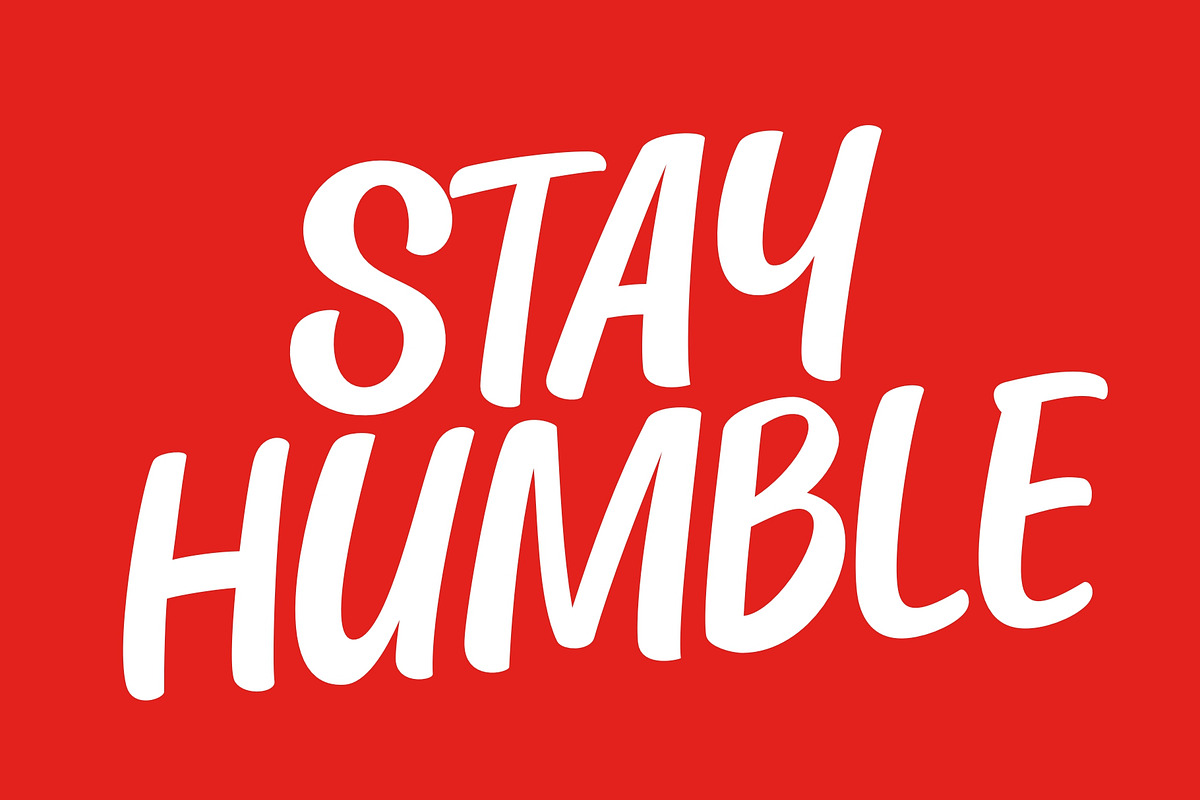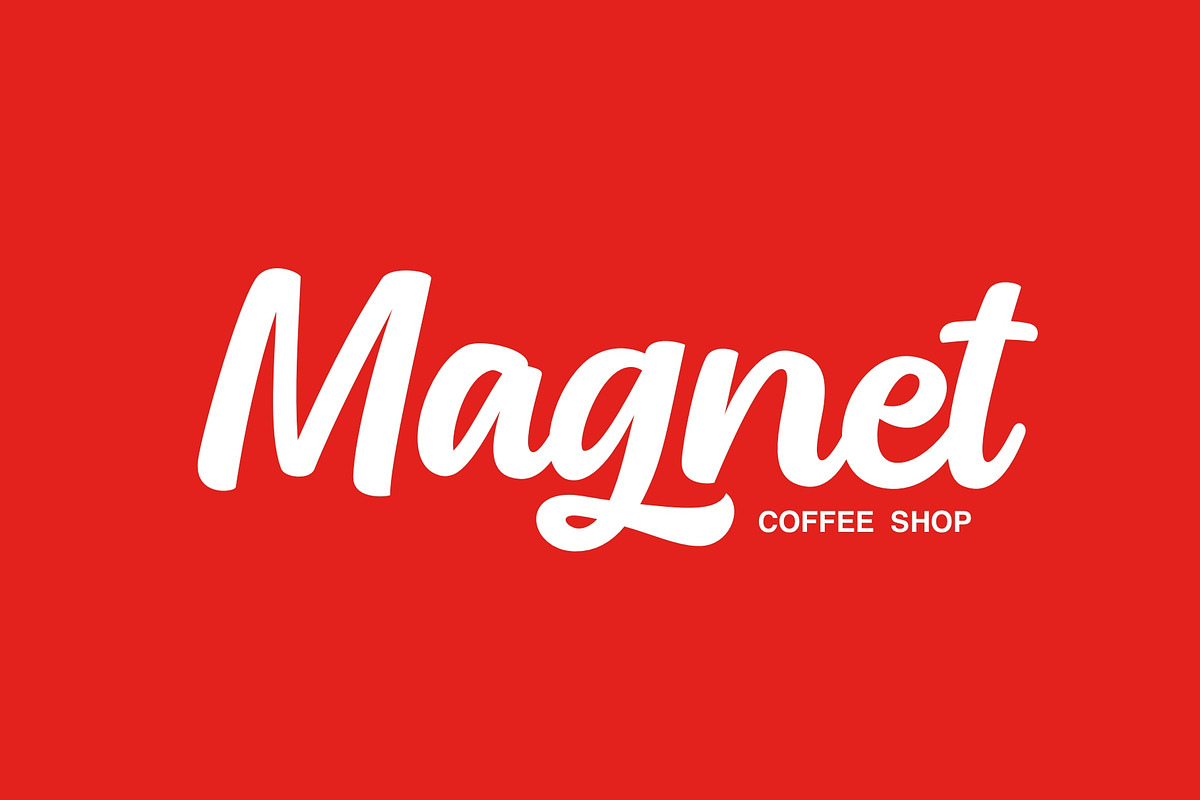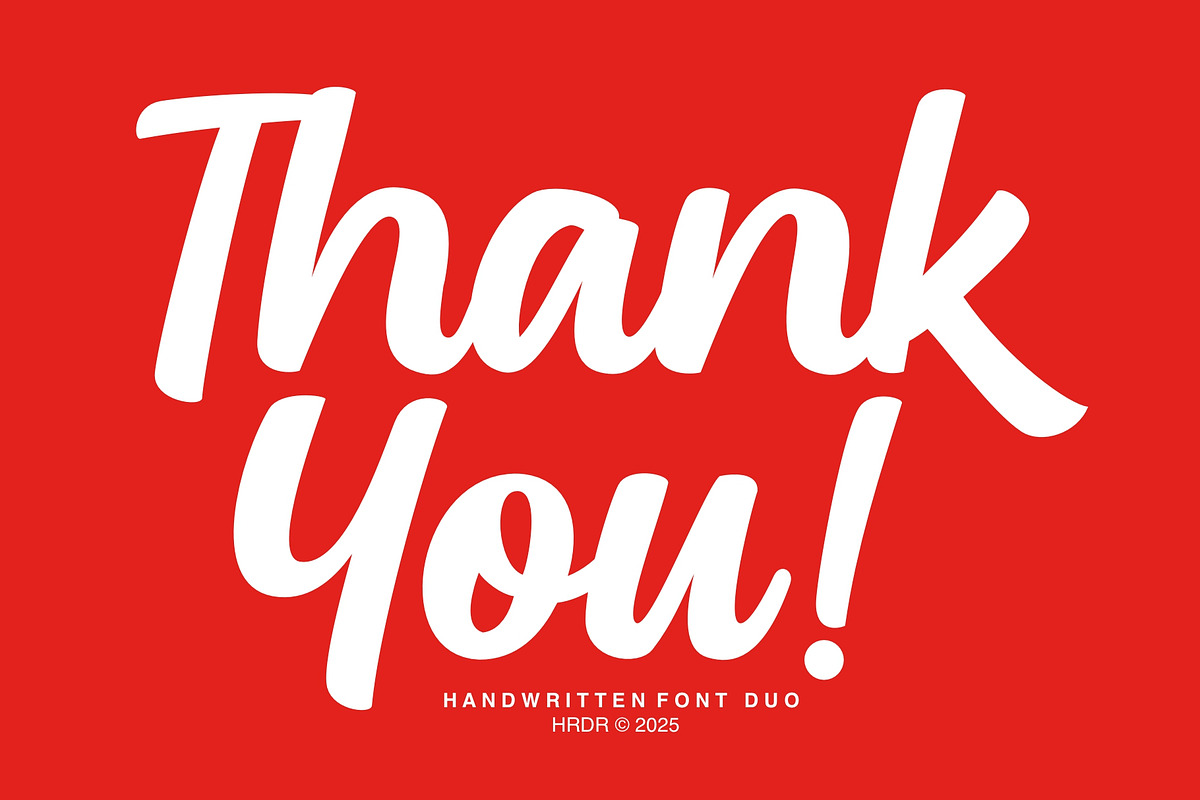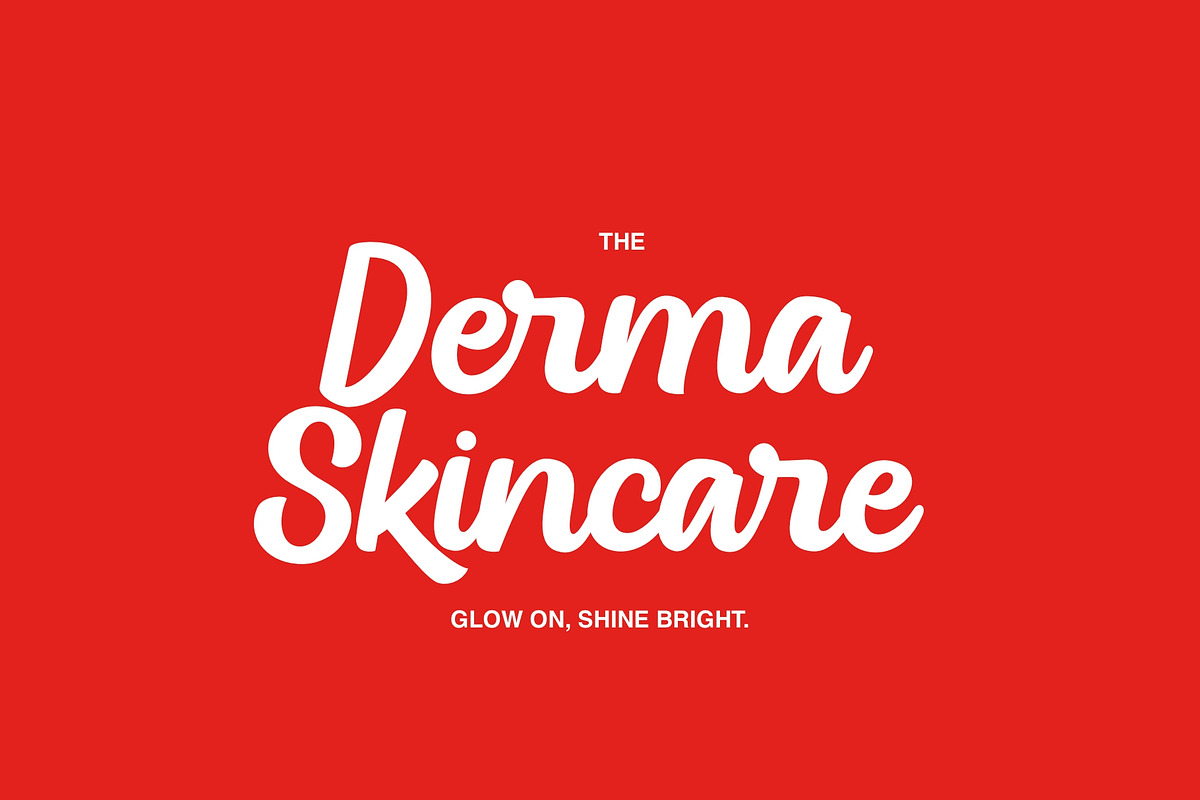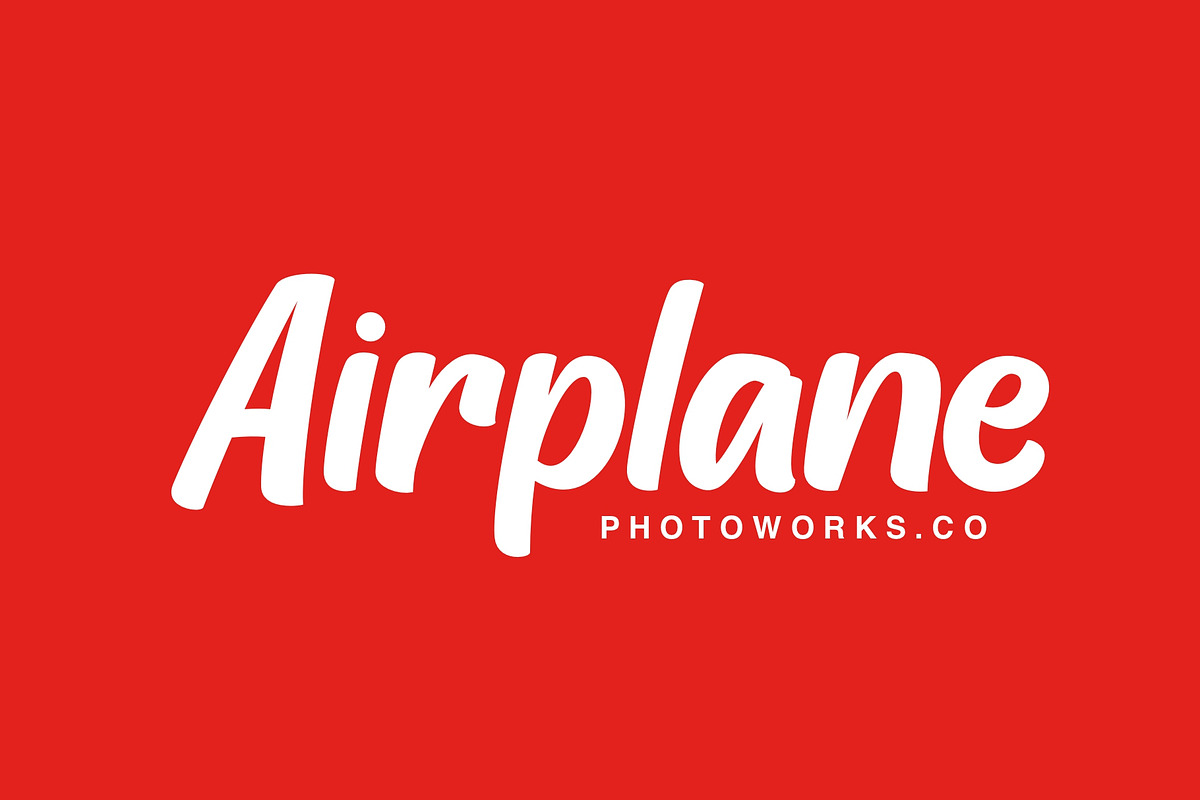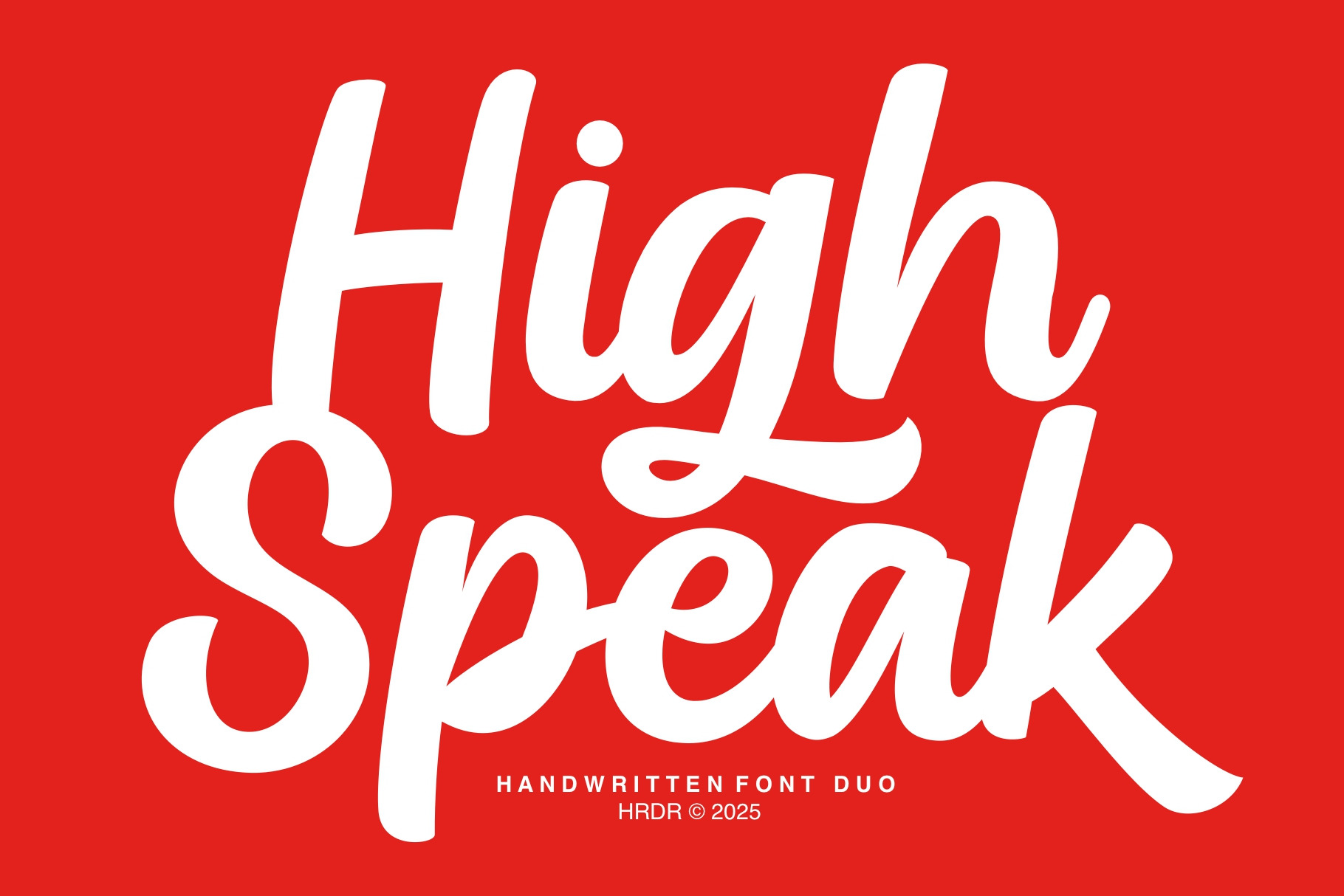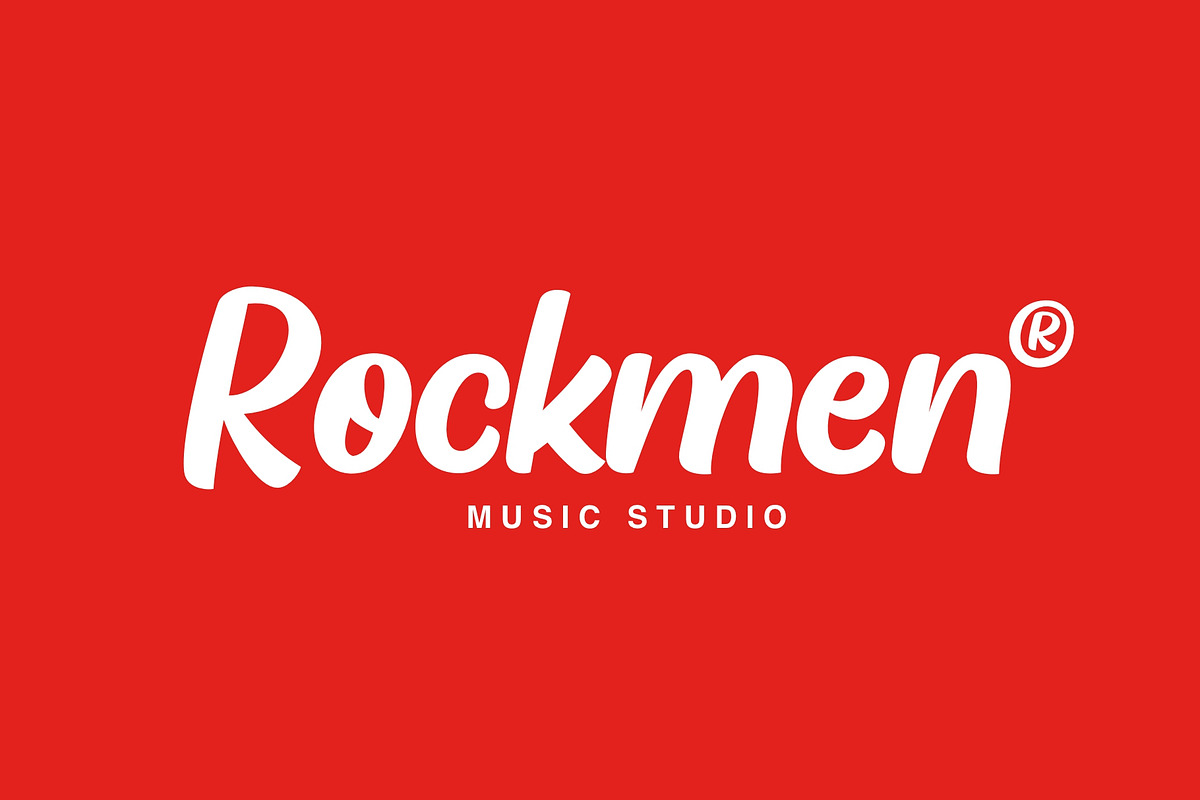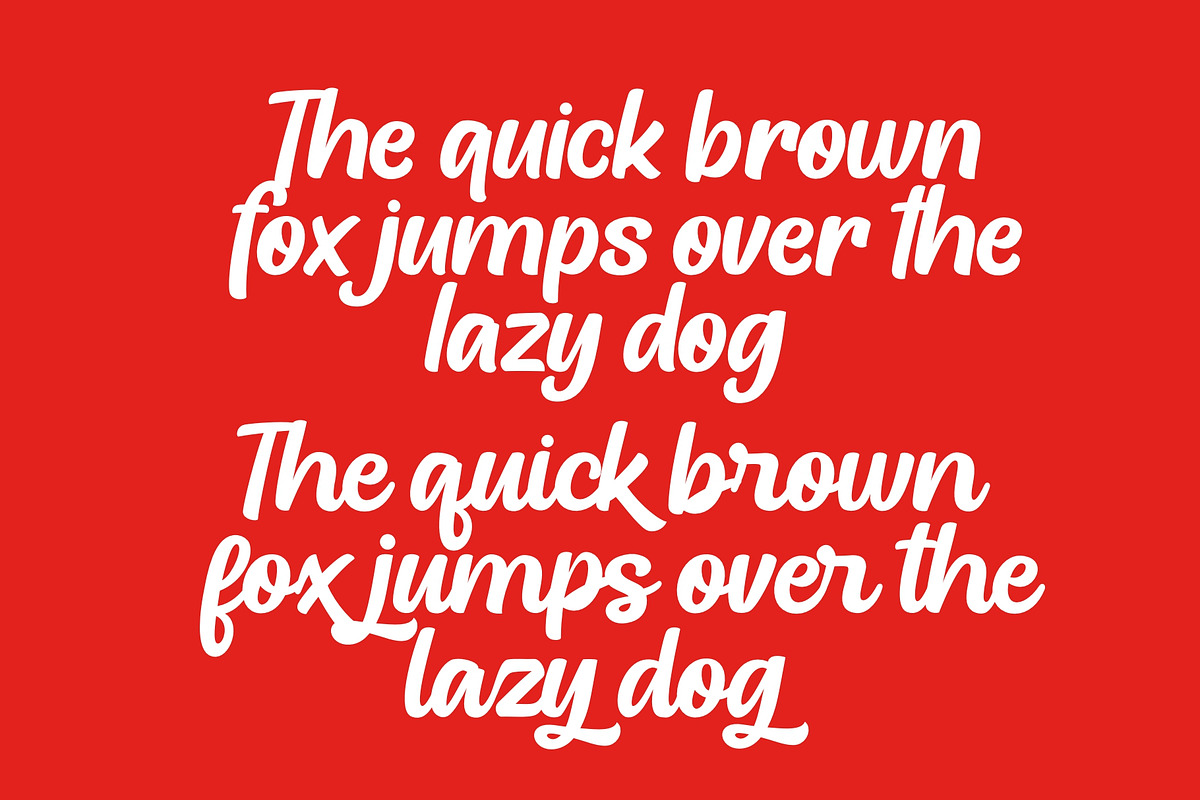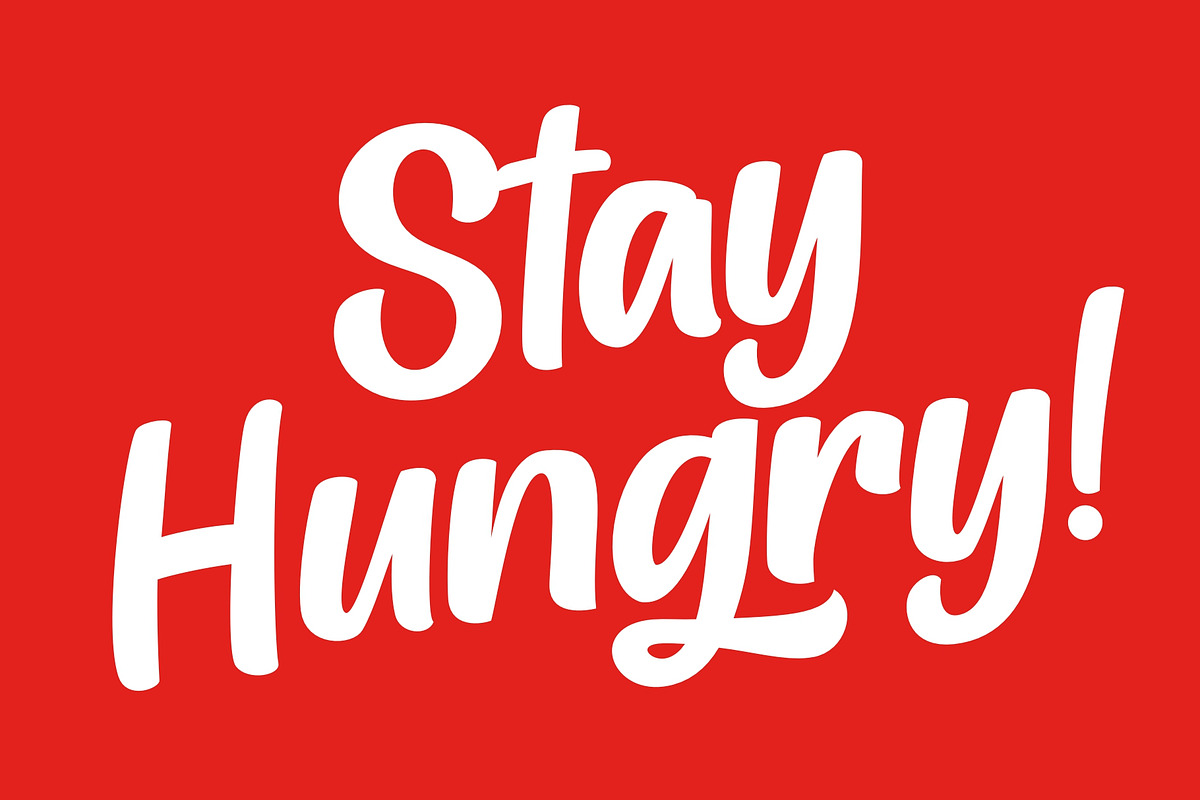
High Speak - Elegant Font
High Speak is an elegant handwritten new font duo, with a simple, refined style, perfect for numerous design projects. Ideal for crafting, branding, invitations, stationery, wedding designs, social media posts, advertisements, product packaging, label design, posters, photography, and special events, this versatile font will add a personal touch to your creative work.
- Numeric & Multilingual support